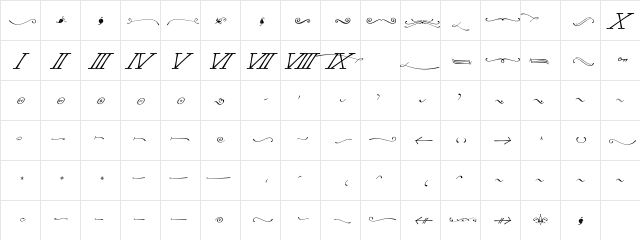
Machia Xtra Two Regular
| Foundry | Ryoichi Tsunekawa, Flat it type foundry |
| Designer | Ryoichi Tusnekawa |
Design Context for Machia Xtra Two Typeface
Machia Xtra Two takes a measured approach to typography — its balanced proportions and neutral character make it a reliable workhorse for both digital and print work.